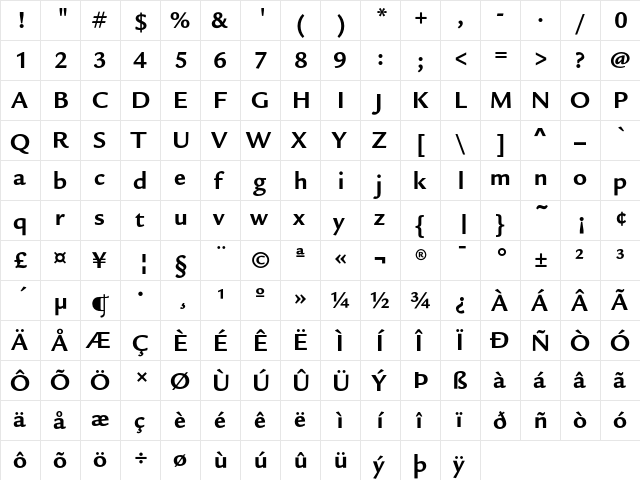
LegacySansEF Bold
Design Context for LegacySansEF Typeface
LegacySansEF is a composed and adaptable typeface that performs quietly and consistently across a wide range of design contexts. Its bold stroke weight gives it real presence on the page.